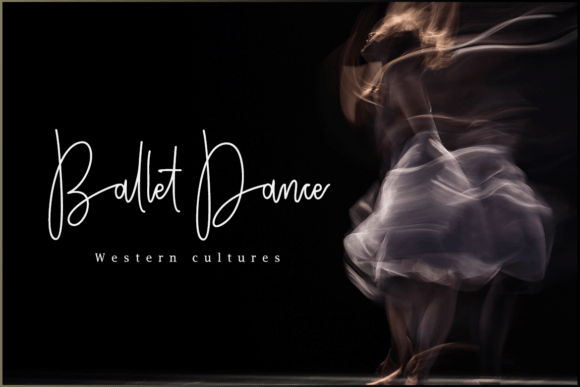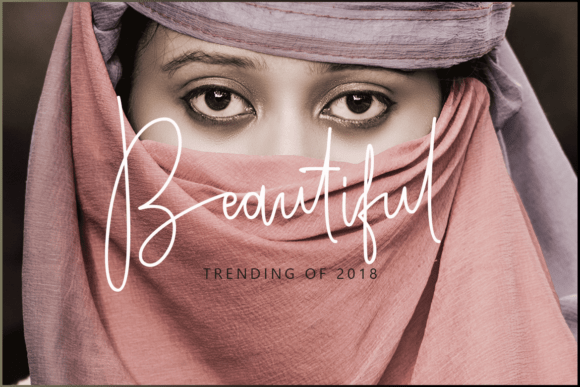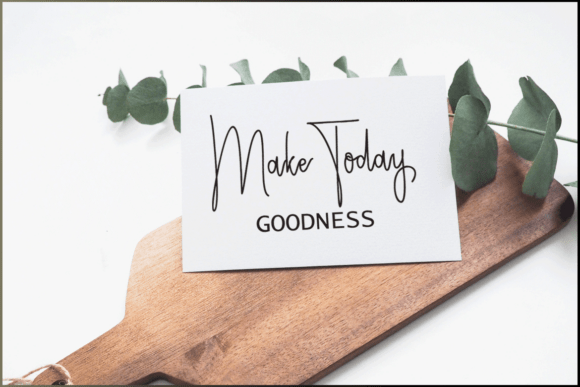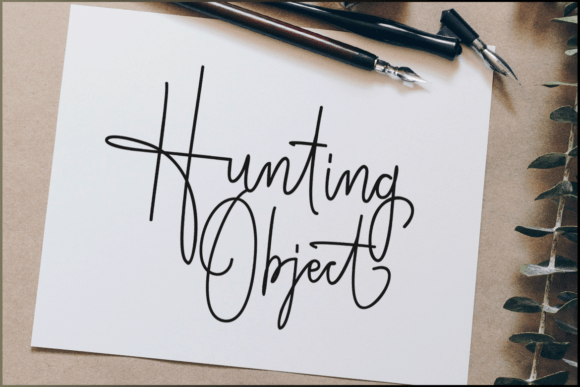
Introduction to Hunting Object Font
Hunting Object is a delicate and elegant handwritten font.
Its distinct and well balanced letters make this font a masterpiece Fall in love with its incredibly versatile style and use it to create spectacular designs.
Key Features of Hunting Object Font
Why Choose Hunting Object Font?
Hunting Object Font offers exceptional quality and versatility, making it a valuable addition to your design toolkit. Whether you’re creating for personal projects or commercial use, Hunting Object Font delivers professional results.